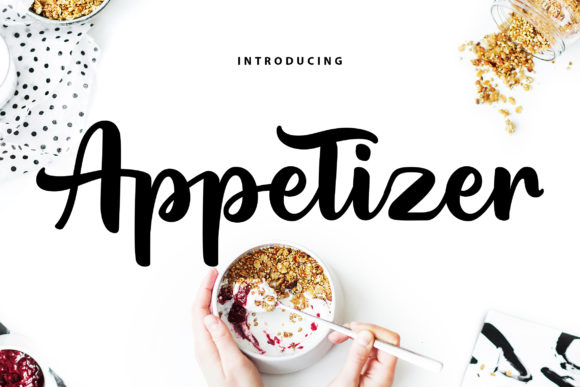
The Elegant Appetizer Font: A Designer’s Delight
I’ll never forget the time I was working on a wedding invitation project, and my client asked for a font that was “elegant, yet subtle.” I scoured the internet, trying out font after font, but nothing seemed to fit the bill. That was until I stumbled upon the Appetizer font. Its unique blend of traditional and contemporary elements instantly caught my eye, and I knew I had found the perfect fit. In this article, I’ll share my love for the Appetizer font, its features, and how to make the most of it in your designs.
- ✨ Distinctive and elegant script with a unique blend of traditional and contemporary elements
- ✅ Well-balanced Latin details with subtle contrasts
- 💯 Maximum versatility, perfect for a wide range of design projects
- 🎨 Exquisite and subtle look that’s sure to impress
While the Appetizer font is a stunning addition to any design project, there are a few things to keep in mind:
- 🤔 Some users may find the font a bit too ornate for certain projects
- ⚠️ Limited use of uppercase letters, which may not be ideal for headings or titles
The Story Behind Appetizer
The Appetizer font was designed with the intention of creating a elegant, yet subtle script that would blend traditional influences with a contemporary aesthetic. The designer aimed to create a font that would be versatile and easy to read, while still standing out from more common fonts. The result is a stunning script font that’s perfect for a wide range of design projects.
Q: What is the Appetizer font?
A: The Appetizer font is a elegant script font that blends traditional influences with a contemporary aesthetic.
Q: What is the Appetizer font used for?
A: The Appetizer font is perfect for a wide range of design projects, including wedding invitations, luxury branding, and creative designs.